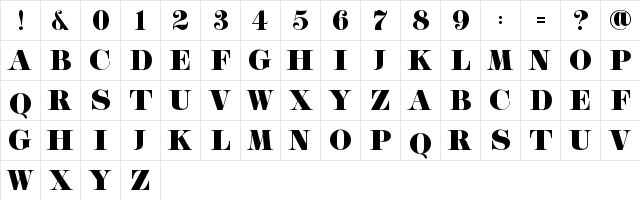
Michaela Demo Med Regular
Design Context for Michaela Demo Med Typeface
Michaela Demo Med is a composed and adaptable typeface that performs quietly and consistently across a wide range of design contexts.